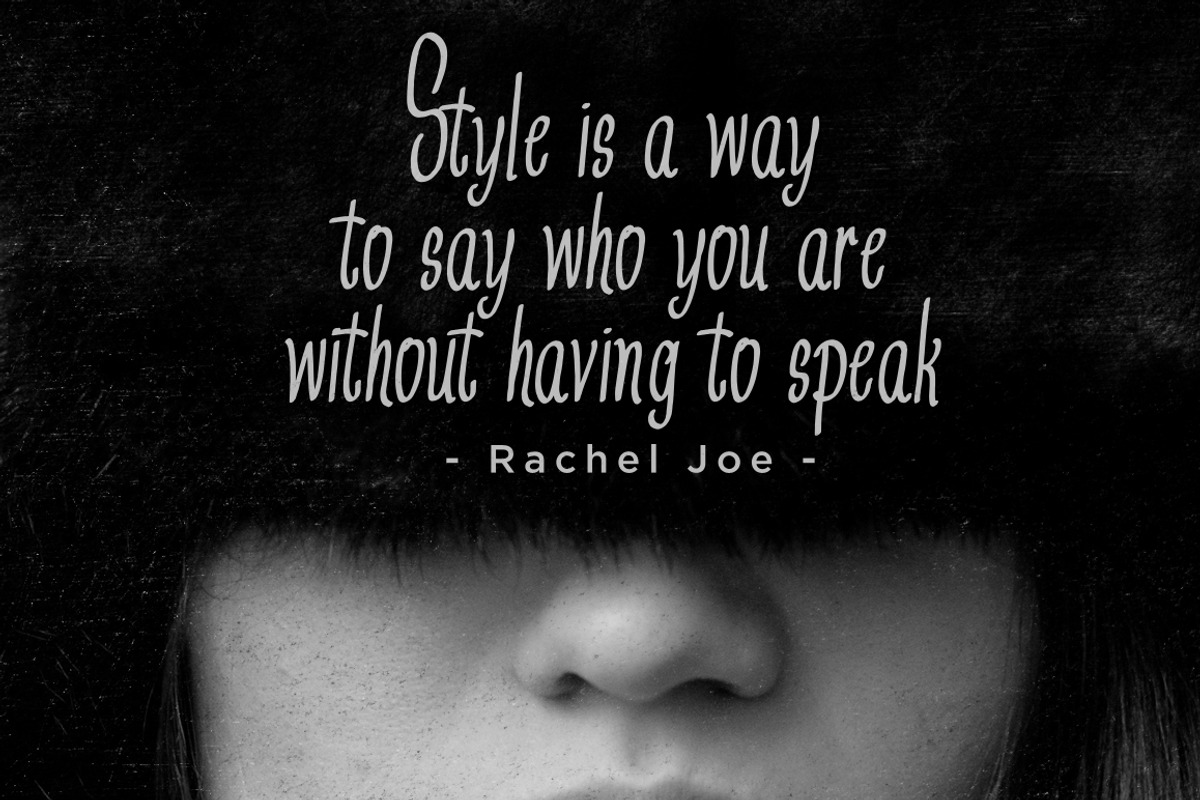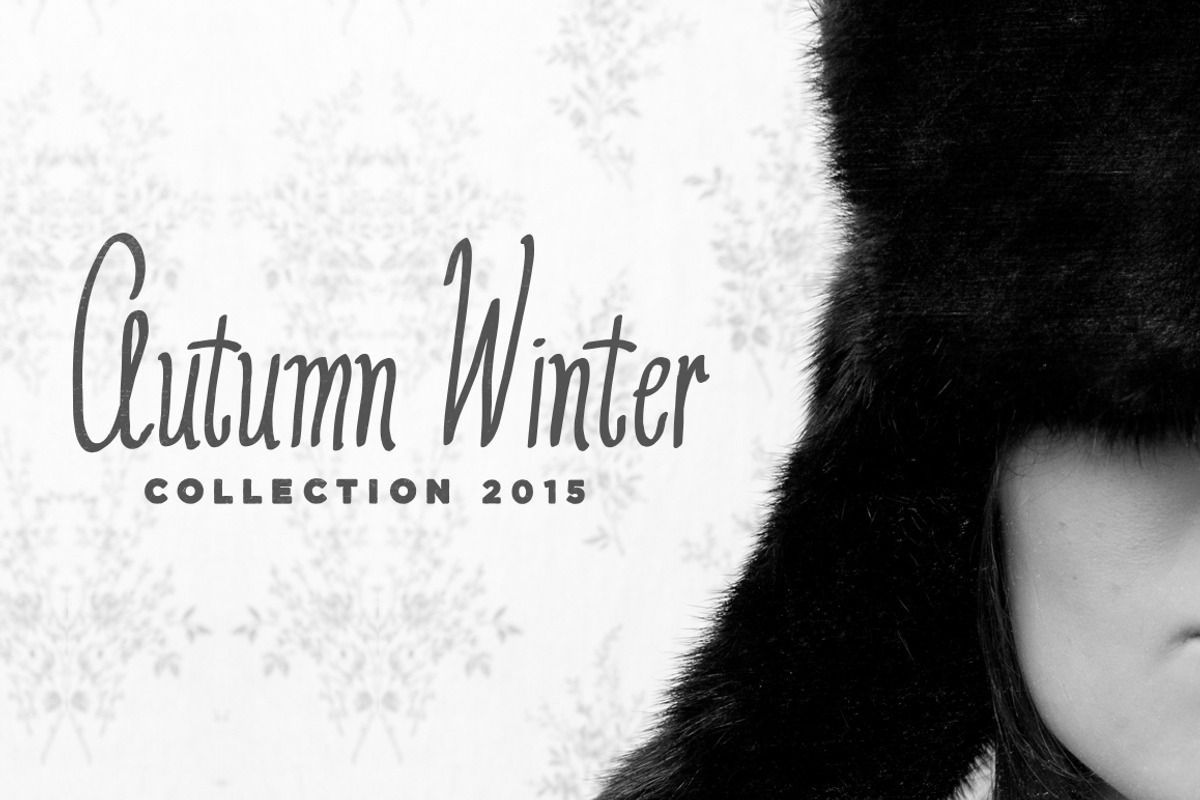
Sale ! 50% Future Attire Typeface by fopifopi is a font selected for branding, posters, packaging, typography.
- Uppercase -Lowercase -Numerals & Punctuations -Accents (Multilingual characters)
- Future Attire Regular
Sale ! 50% Future Attire Typeface by fopifopi fits naturally into Branding, posters, packaging, typography.